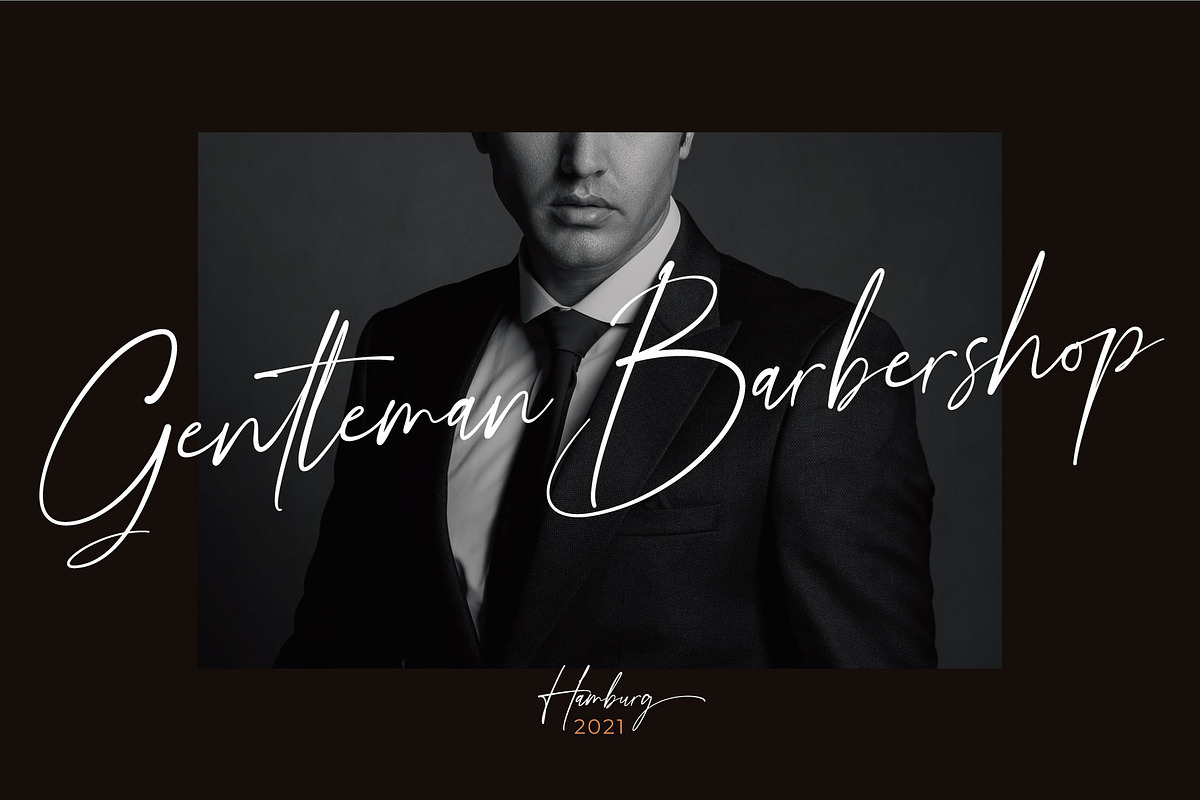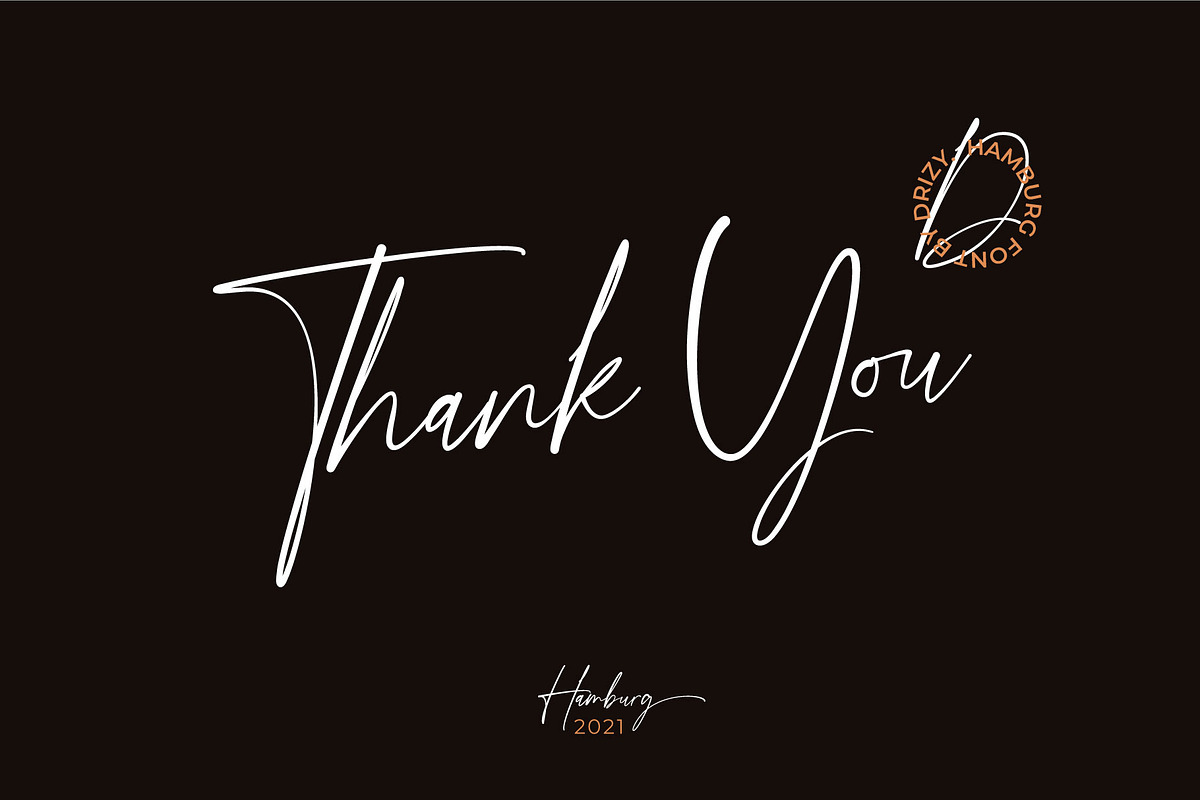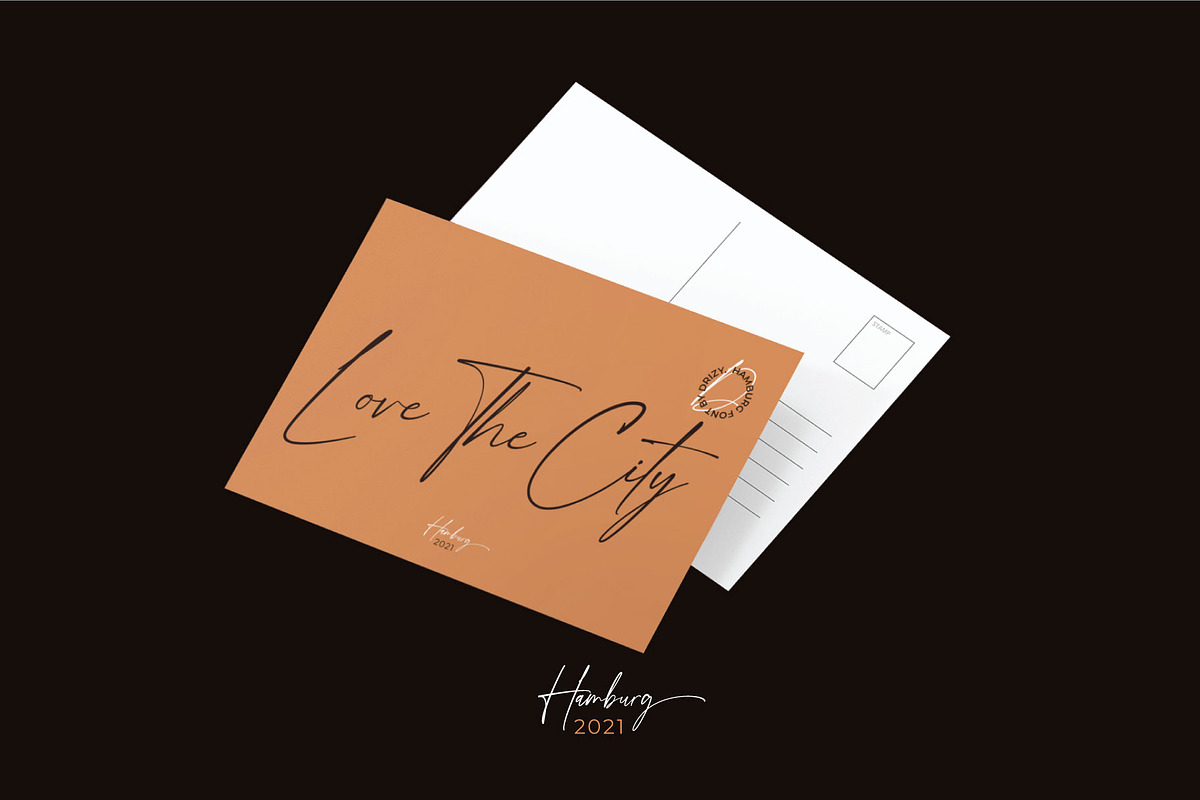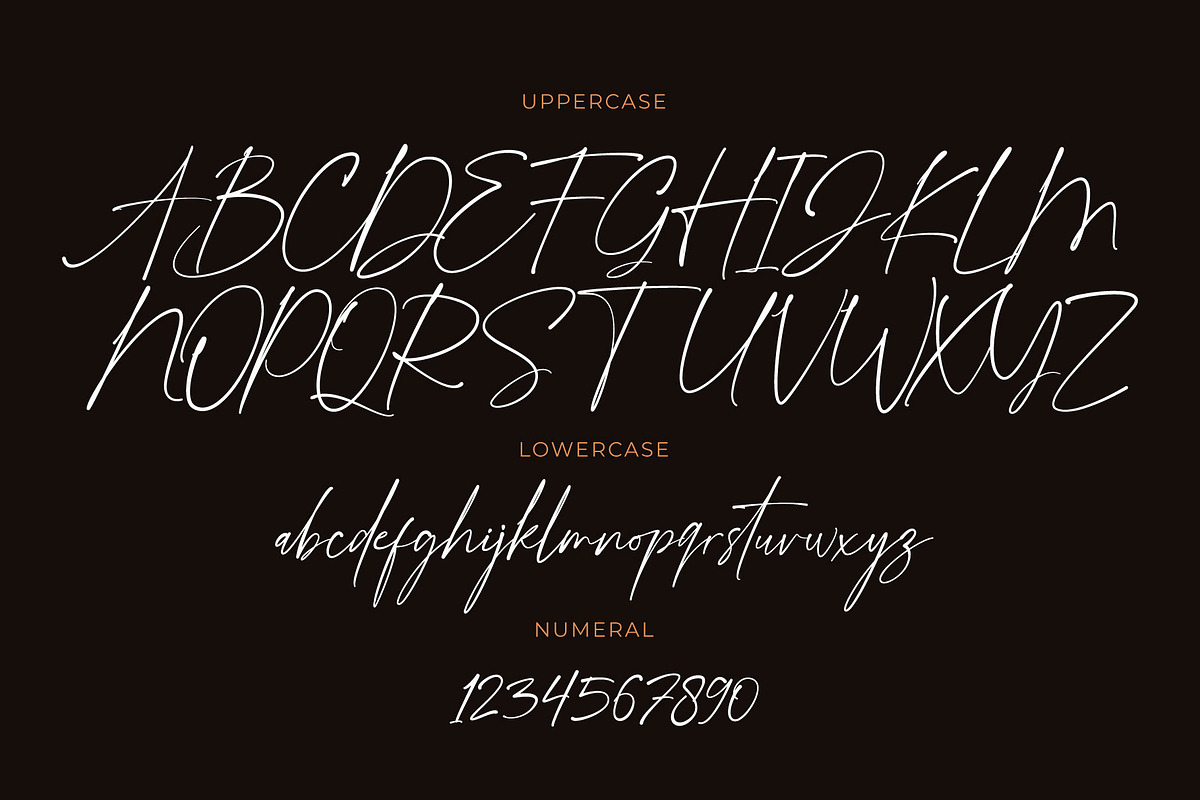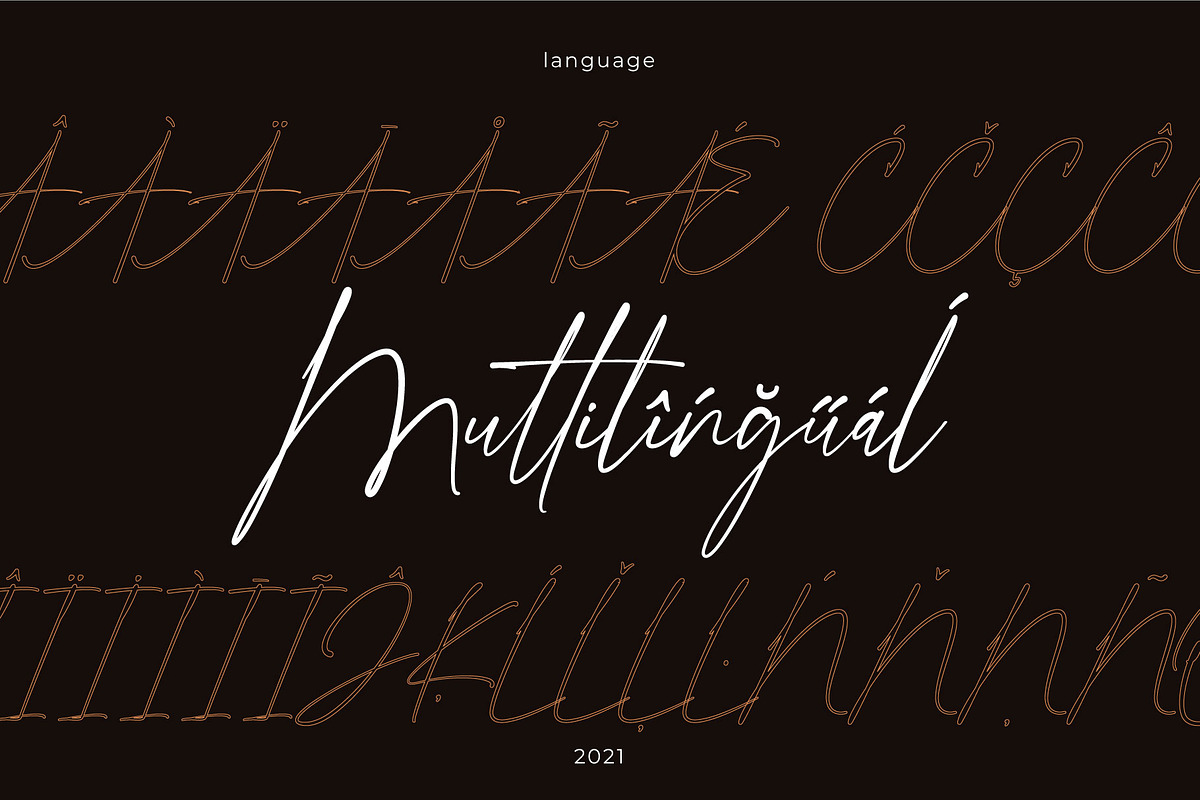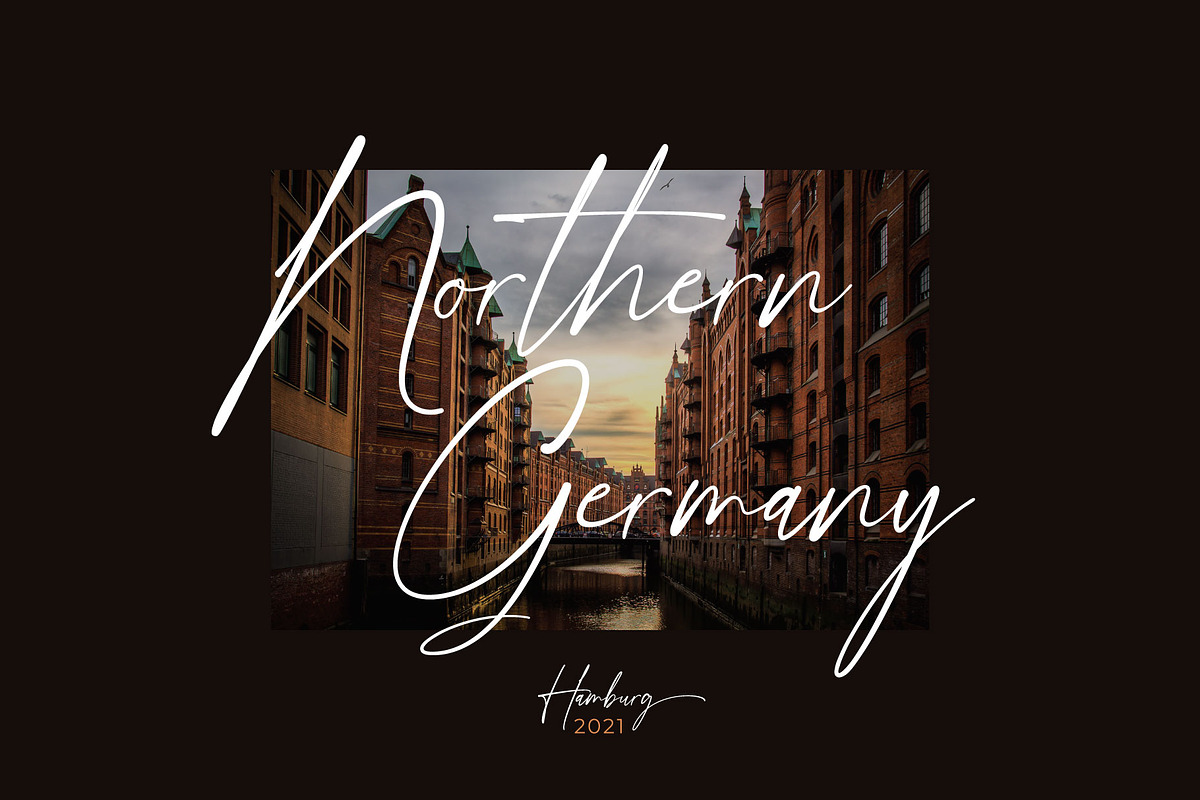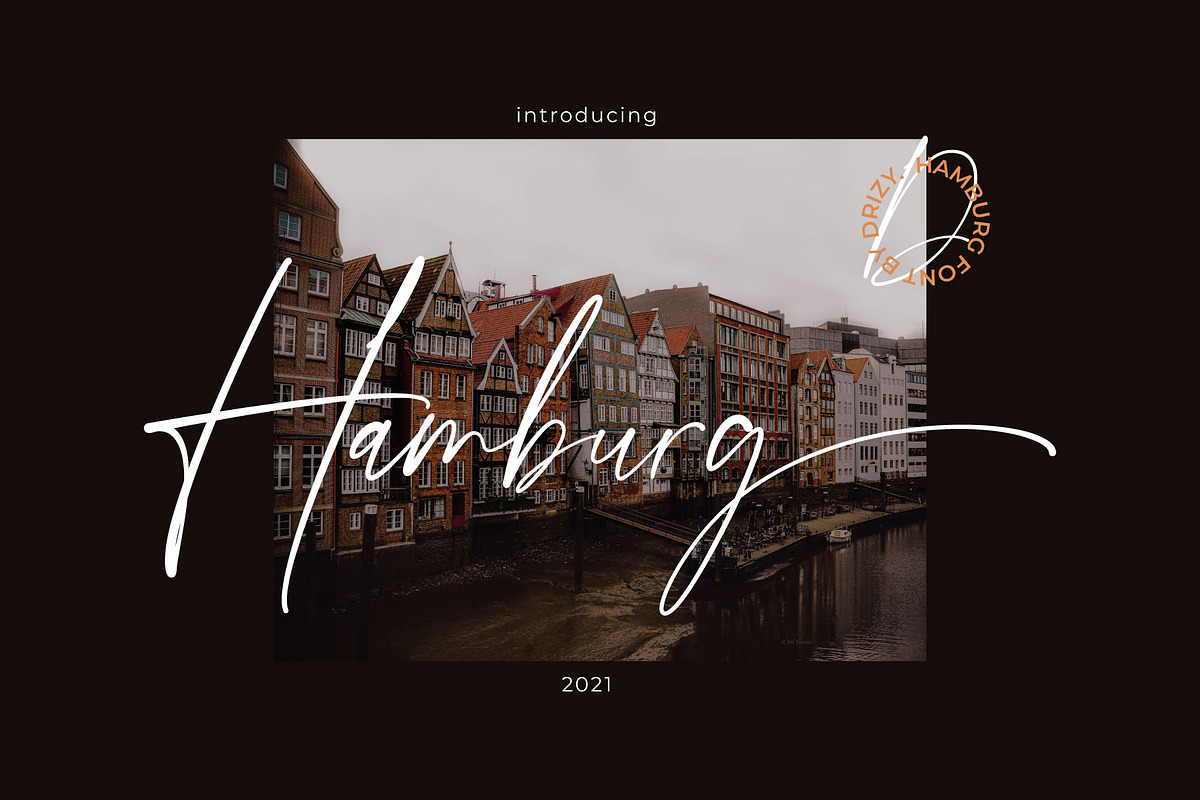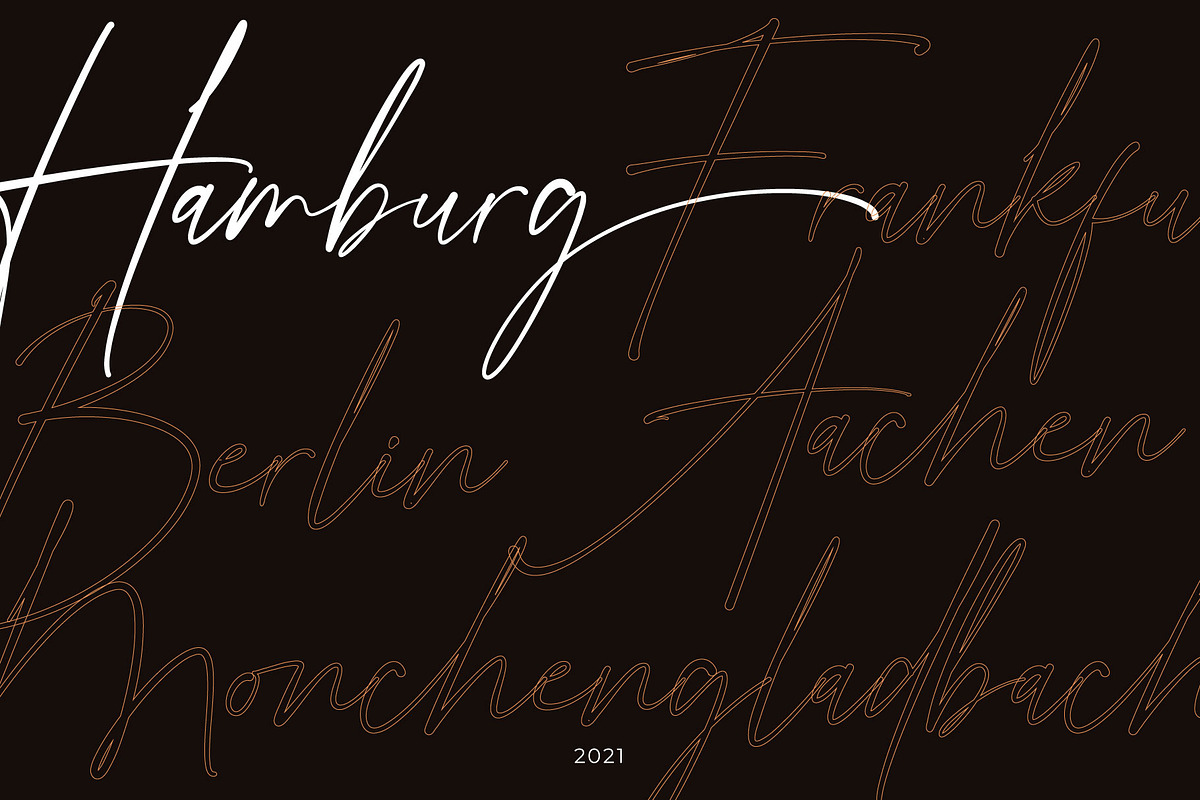
Hamburg
Hamburg Signature Typeface
Introducing Hamburg! a beautiful signature font with multilingual, alternate, stylistic and ligature from drizy! This is beauty and smooth signature typeface. Perfect for gorgeous logo name, titles etc, Hamburg will pair beautifully with many fonts and work well with whatever project you're working on.
Hamburg Features :
Multilanguange, Ligatures, Stylistic